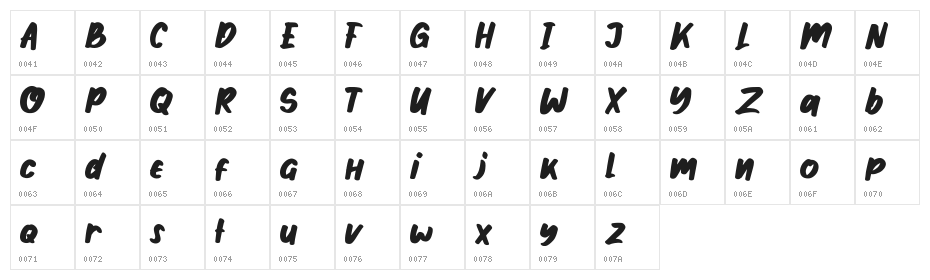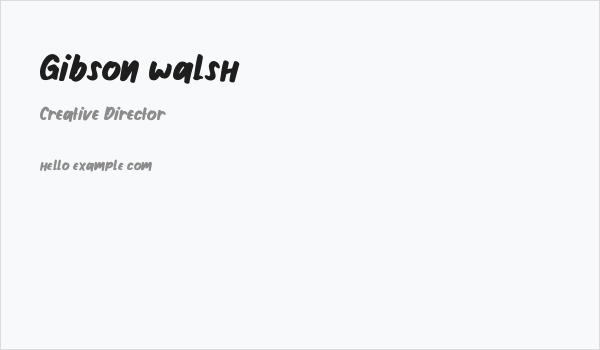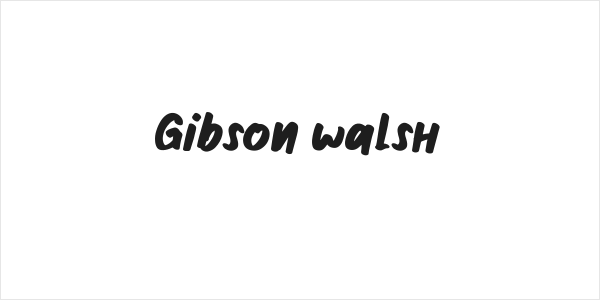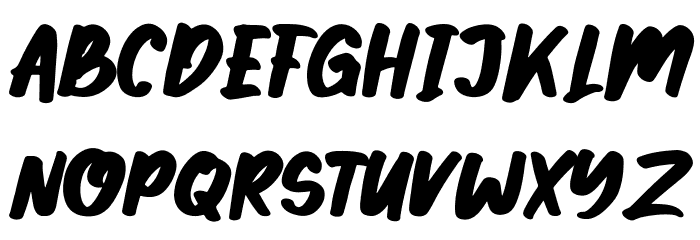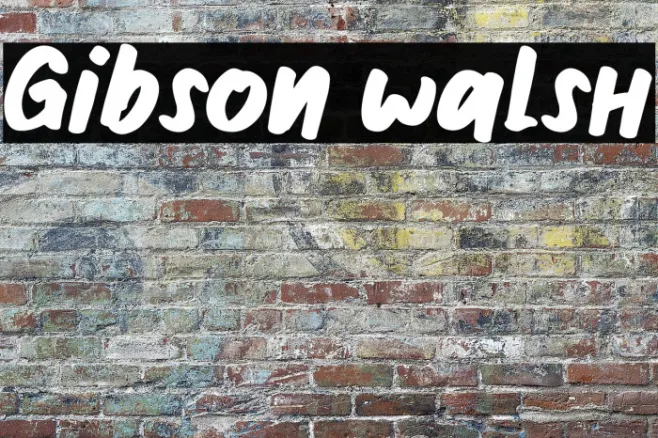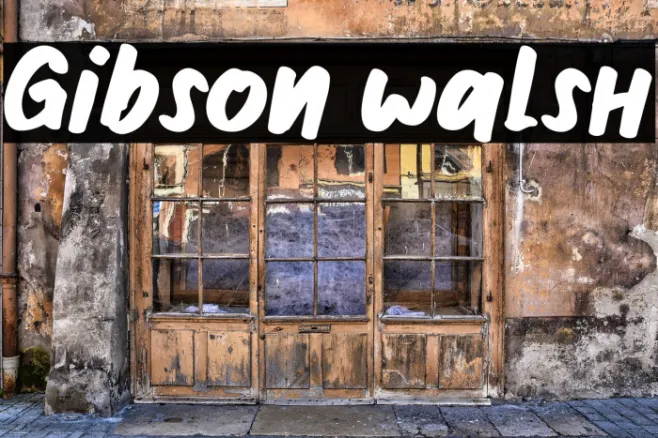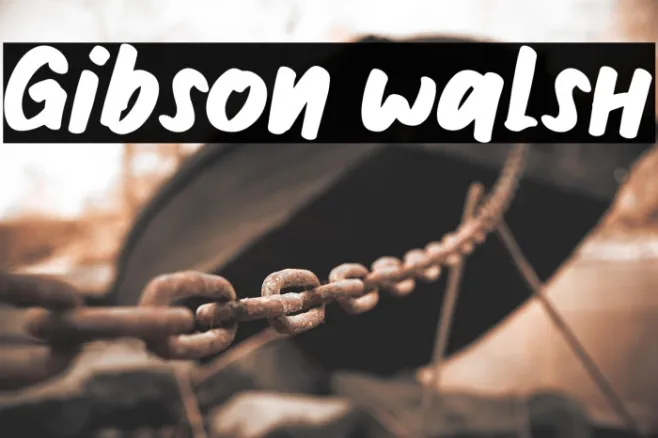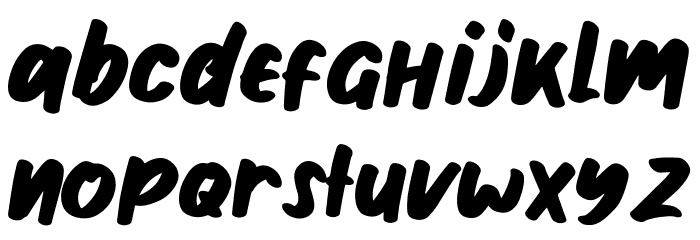
Gibson walsh Font
Gibson walsh Description
This font features a bold and dynamic script style with a handwritten appearance. The letters are thick and rounded, giving a sense of energy and movement. The strokes are smooth and fluid, with a slight slant that adds to its casual and informal feel. The uppercase and lowercase letters are well-balanced, maintaining consistency in their design. This font is highly legible, even at smaller sizes, due to its clear and distinct letterforms. It exudes a playful and friendly vibe, making it suitable for creative and expressive projects.
| Proposed Projects | Ideal for branding, packaging, posters, and social media graphics where a lively and informal touch is desired. |